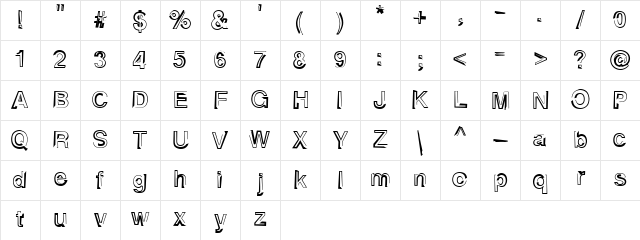
Complete AlphaSevenTeen glyph index. Displaying only characters natively supported by AlphaSevenTeen font.
AlphaSevenTeen is a composed and adaptable typeface that performs quietly and consistently across a wide range of design contexts.